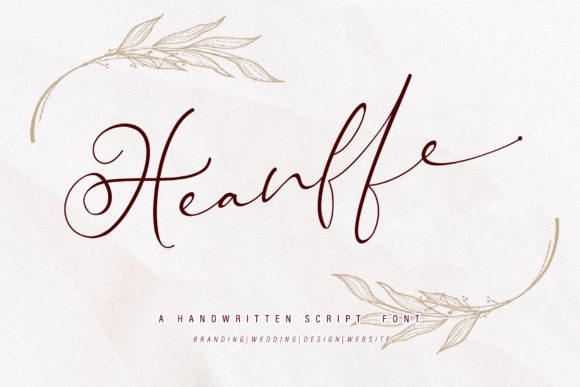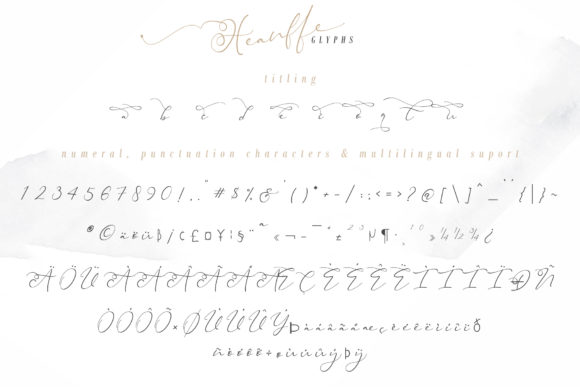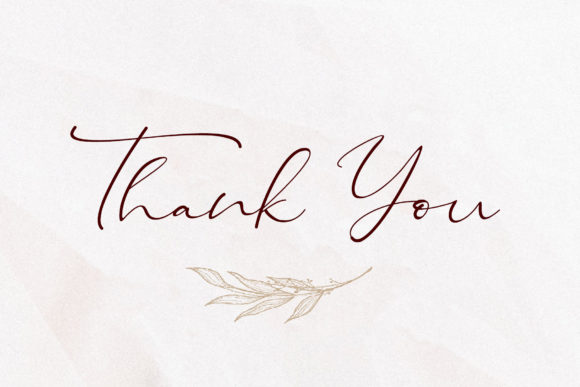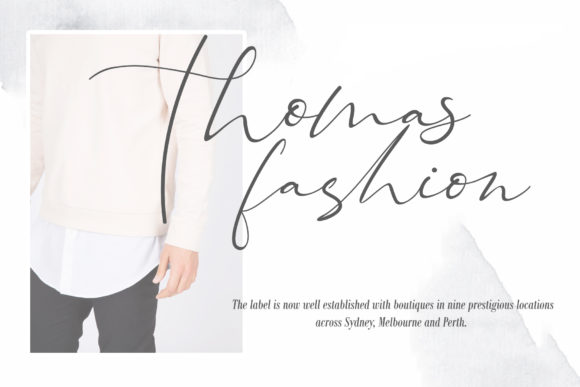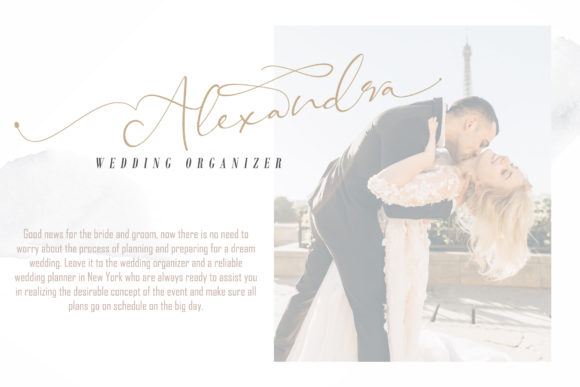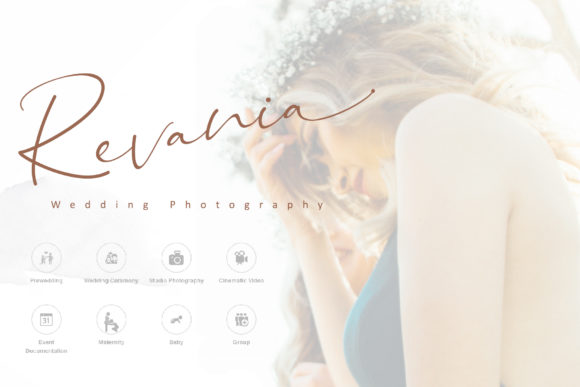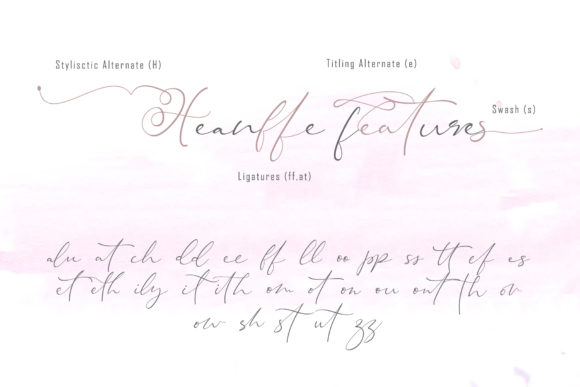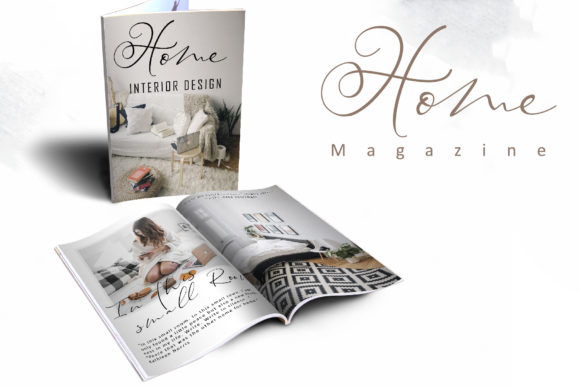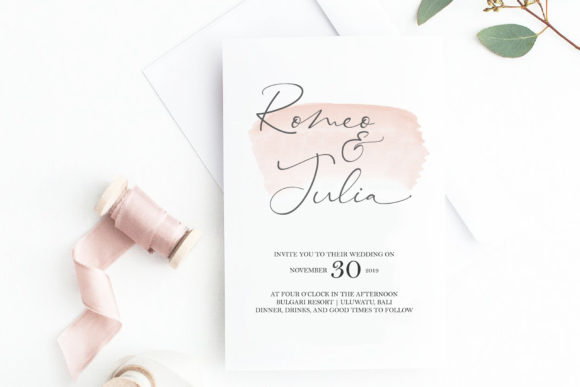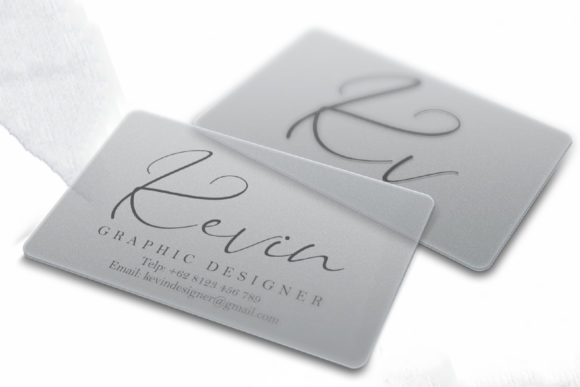
HomeScript FontsHeanffe Font Script Fonts Heanffe Font FacebookXPinterestWhatsApp Heanffe Font Poster 2 Heanffe Font Poster 3 Heanffe Font Poster 4 Heanffe Font Poster 5 Heanffe Font Poster 6 Heanffe Font Poster 7 Heanffe Font Poster 8 Heanffe Font Poster 9 Heanffe Font Poster 10 Heanffe Font Poster 11 About Heanffe Font Heanffe is a one-of-a-kind handwritten font with a soft and light feel. Fall in love with its authentic charm! DOWNLOAD ON CREATIVE FABRICAThis font is sold and delivered by Creative Fabrica. Font Canyon may earn a commission if you buy through this link. People also explored Christmas Font Sour Kiwi Font Magnolia Sparkling Font Watercolor Font Aura Font Trending Font Beauty Queen Font Flawlessly Font HMS Gilbert Family 416 0 TagsHeanffe Font Previous articleAngellina FontNext articleYoung Daughter Font LEAVE A REPLY Cancel reply Comment: Please enter your comment! Name:* Please enter your name here Email:* You have entered an incorrect email address! Please enter your email address here Website: Save my name, email, and website in this browser for the next time I comment. Personal Use Free Autumn Flowers Font Personal Use Free Read more about this font Love Ya Personal Use Free Read more about this font Rellista Script Personal Use Free Read more about this font Angelika Playful Personal Use Free Read more about this font BLOG Using Fonts in Digital Marketing: Tips to Strengthen Your Brand Identity In the realm of digital marketing, every visual element plays a crucial role in shaping a brand's identity, and fonts are no exception. The... 5 Fonts That Will Dominate Design Trends in 2026 Exploring Font Trends Top 7 Google Fonts Alternatives for Faster and Privacy-Friendly Web Design (2025)